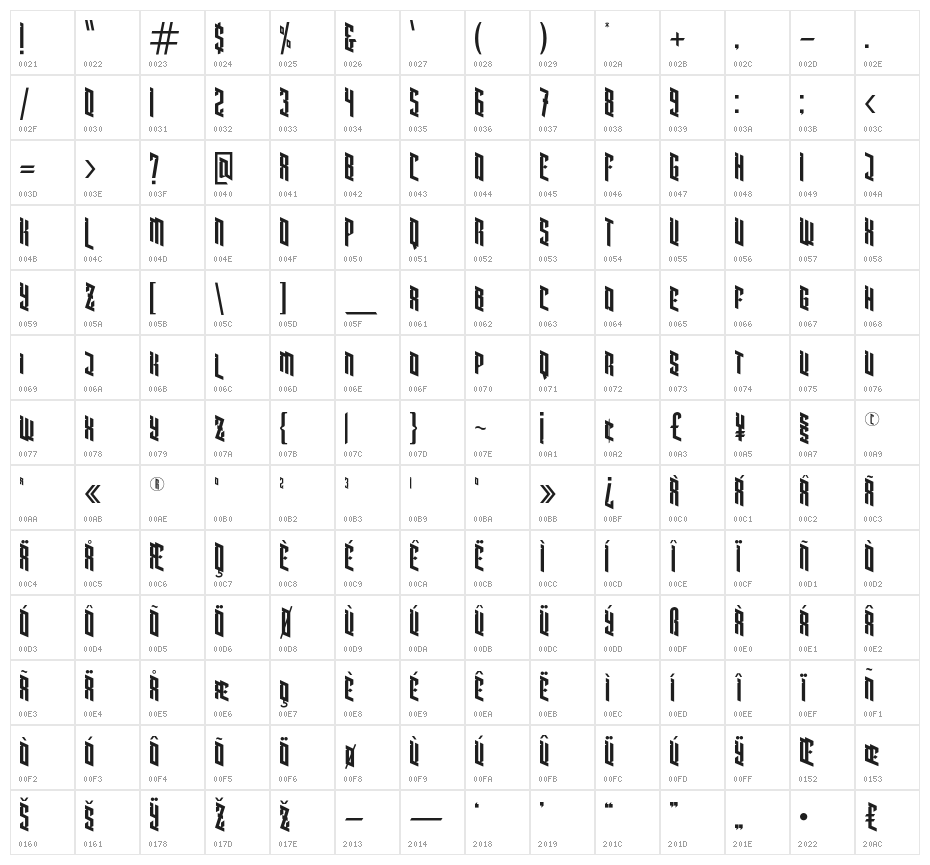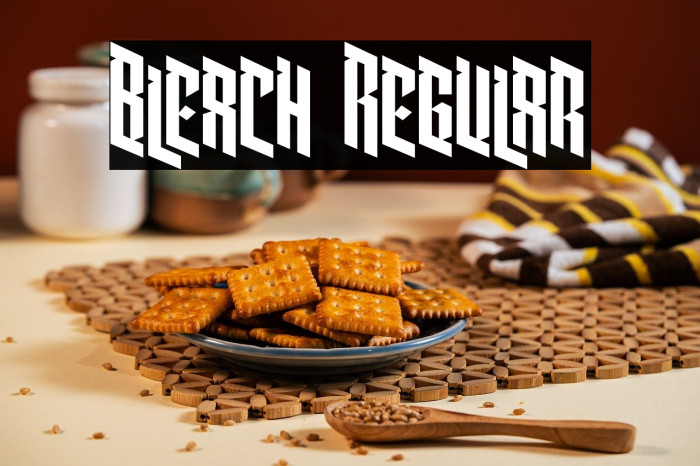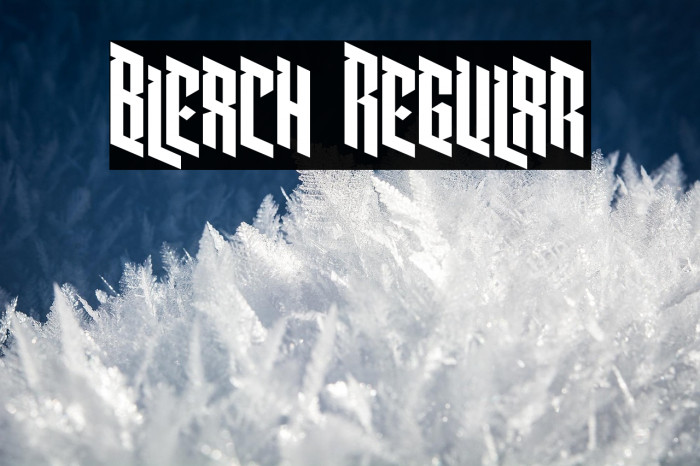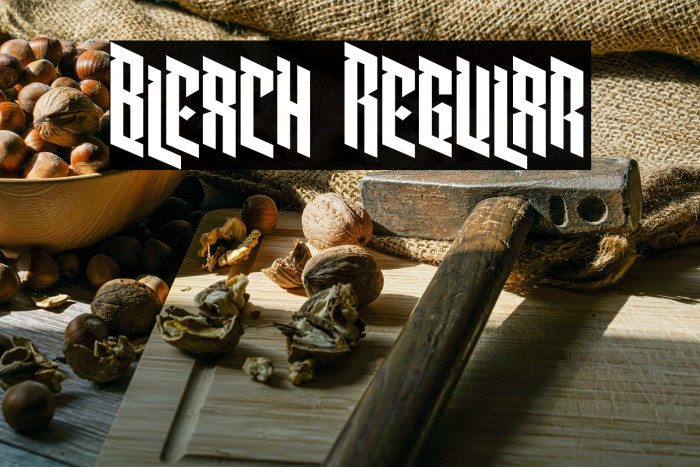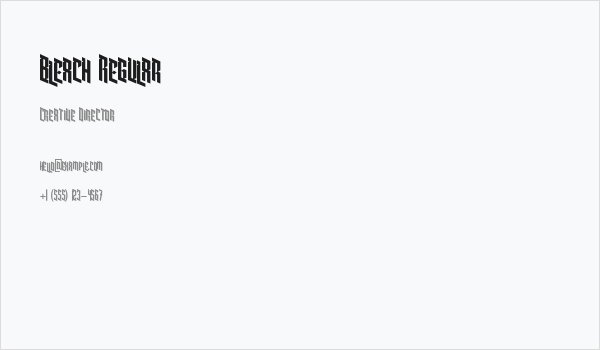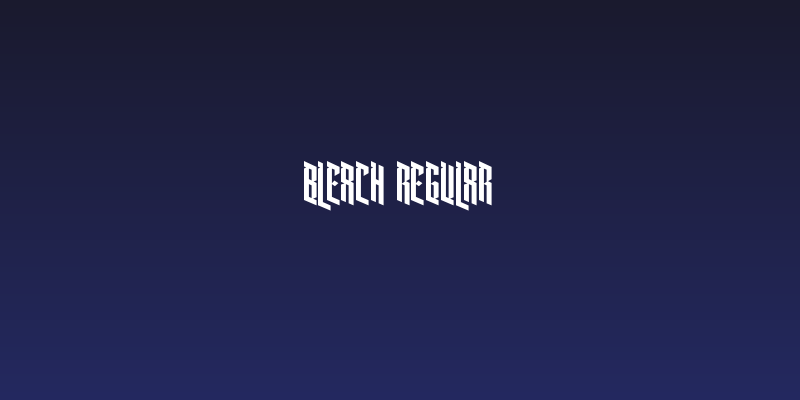
Bleach Regular Font
Bleach Regular Description
This font features a bold and angular design with sharp, geometric lines that create a striking and modern appearance. The characters are tall and narrow, giving a condensed look that emphasizes verticality. The uppercase and lowercase letters maintain a consistent style, with each character exhibiting a unique angular cut that adds to the overall edgy aesthetic. The numbers and special characters follow the same design principles, ensuring uniformity across all glyphs. This font's distinctive style makes it ideal for attention-grabbing designs.
| Proposed Projects | Ideal for use in branding, posters, album covers, and any project requiring a bold, modern aesthetic. |